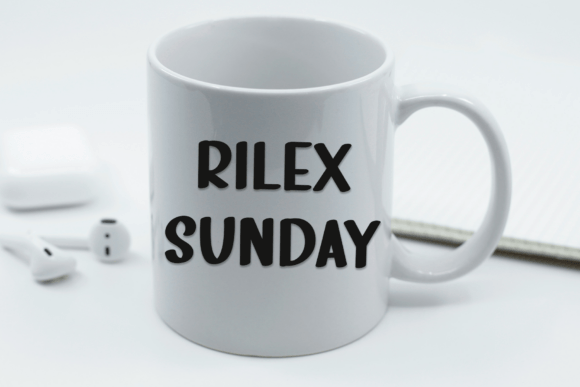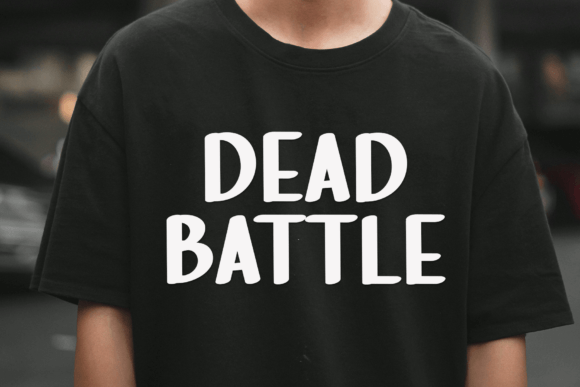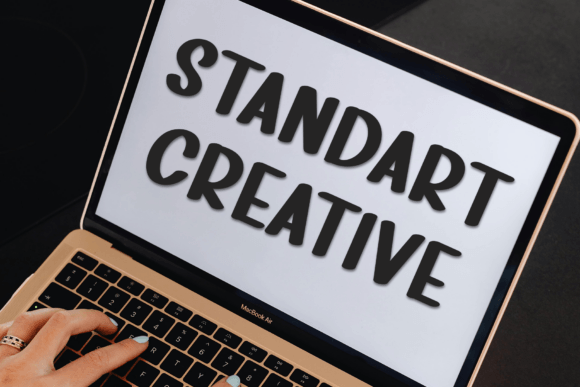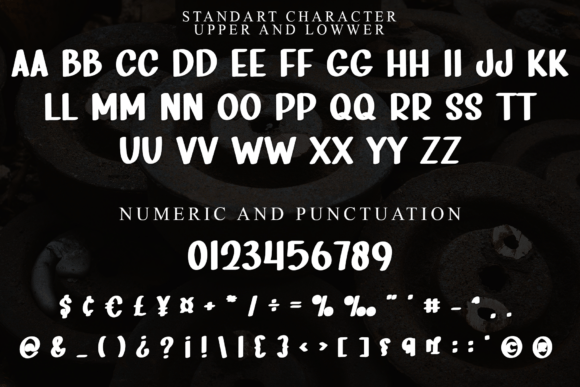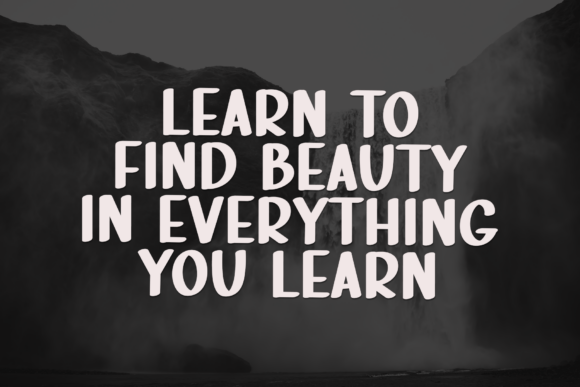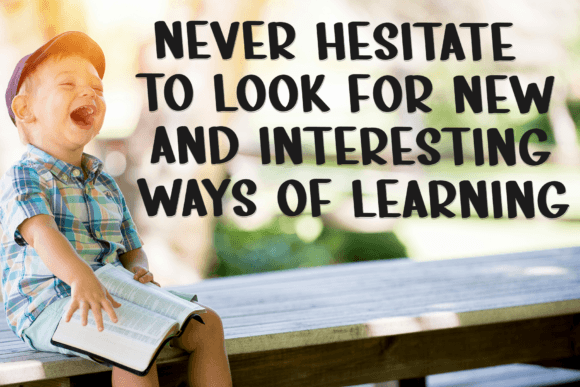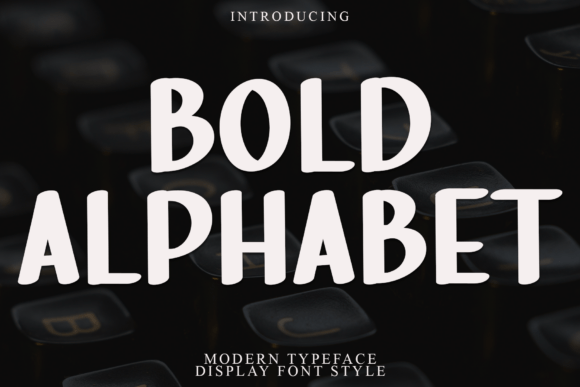
Unlocking the Power of Bold Alphabet Fonts: A Comprehensive Guide
In the world of typography, few elements can make as significant an impact as a bold alphabet font. The Bold Alphabet display font, with its thick, heavy letters, is a prime example of a typeface designed to grab attention and make a statement. Whether you’re working on a headline, poster, or any design that needs to stand out, this font is an excellent choice. In this article, we’ll explore the characteristics, uses, and benefits of bold alphabet fonts, with a special focus on The Bold Alphabet display font.
Characteristics of The Bold Alphabet Display Font
The Bold Alphabet display font is characterized by its robust and commanding presence. Its thick, heavy letters are crafted to ensure clarity and readability, even at larger sizes. This makes it an ideal choice for designs where you want to ensure your message is not only seen but also easily understood. The font’s strong and modern feel can elevate any design, adding a touch of professionalism and sophistication.
Uses of Bold Alphabet Fonts
Bold alphabet fonts, like The Bold Alphabet display font, have a wide range of applications. Here are some of the most popular uses:
• Headlines and Titles: The most obvious use for bold alphabet fonts is in headlines and titles. They are perfect for grabbing attention and making a strong first impression.
• Posters and Flyers: For any poster or flyer, the goal is often to catch the eye and communicate a message quickly. Bold alphabet fonts achieve this beautifully, making your content hard to ignore.
• Branding and Logos: A bold alphabet font can be a great choice for logos, especially for brands that want to appear strong, reliable, and modern.
• Advertising: In advertising, the goal is to stand out and be remembered. A bold alphabet font can help achieve this by making your ad copy more noticeable.
Benefits of Using The Bold Alphabet Display Font
There are several benefits to using The Bold Alphabet display font in your designs:
• Attention-Grabbing: The most significant advantage is its ability to grab attention. In a world where we’re constantly bombarded with information, a bold alphabet font can help your message cut through the noise.
• Readability: Despite its boldness, The Bold Alphabet display font maintains a high level of readability. This ensures that your message is not only seen but also understood.
• Versatility: This font can be used across various mediums, from digital platforms to print materials, making it a versatile choice for designers.
• Modern Aesthetic: The font’s modern look can help give your designs a contemporary feel, which is crucial for brands looking to appear current and relevant.
Tips for Using Bold Alphabet Fonts Effectively
While bold alphabet fonts are incredibly effective, there are some tips to keep in mind to use them to their full potential:
• Use Sparingly: Because of their strong presence, it’s best to use bold alphabet fonts sparingly. Overusing them can overwhelm the viewer.
• Pair with Simpler Fonts: For body text or other design elements, pair your bold alphabet font with a simpler, more readable font to create contrast and visual interest.
• Consider Size and Color: The size and color of your bold alphabet font can significantly impact its effectiveness. Make sure it’s large enough to be easily read from a distance and choose a color that stands out against the background.
The Bold Alphabet display font is a powerful tool in the world of design. Its ability to grab attention, combined with its readability and modern aesthetic, makes it an excellent choice for a wide range of applications. By understanding its characteristics, uses, and benefits, and by following best practices for its use, designers and crafters can leverage this bold alphabet font to create impactful and memorable designs.
Whether you’re a seasoned designer or just starting out, the possibilities with The Bold Alphabet display font are endless. So, don’t be afraid to experiment and push the boundaries of what’s possible with bold alphabet fonts. Your next big project could be just a bold statement away.